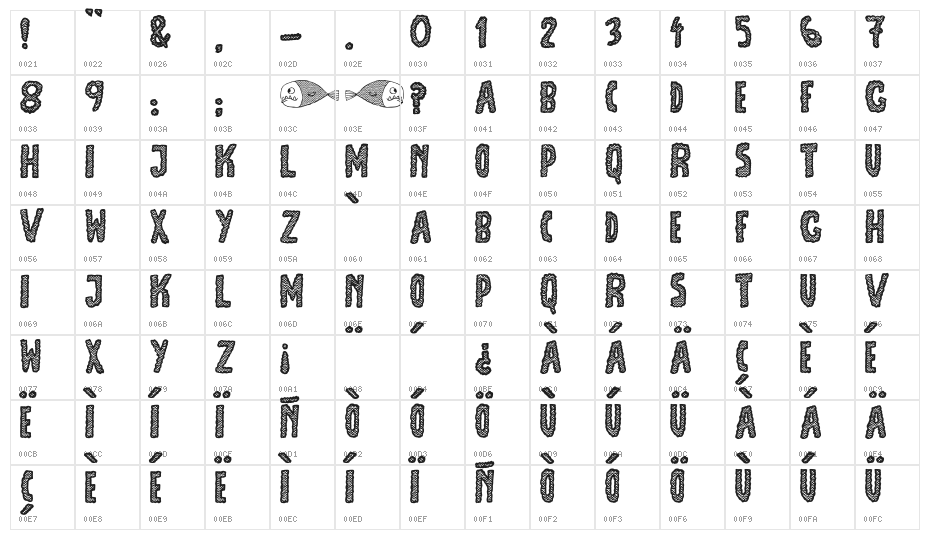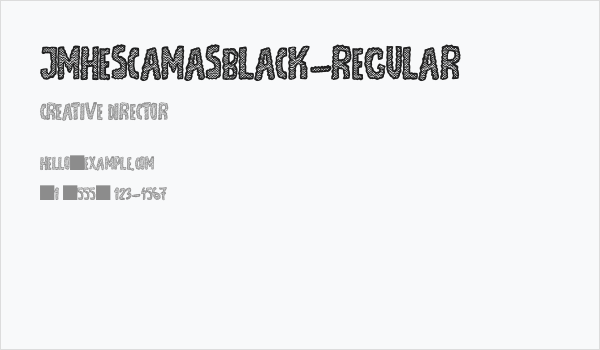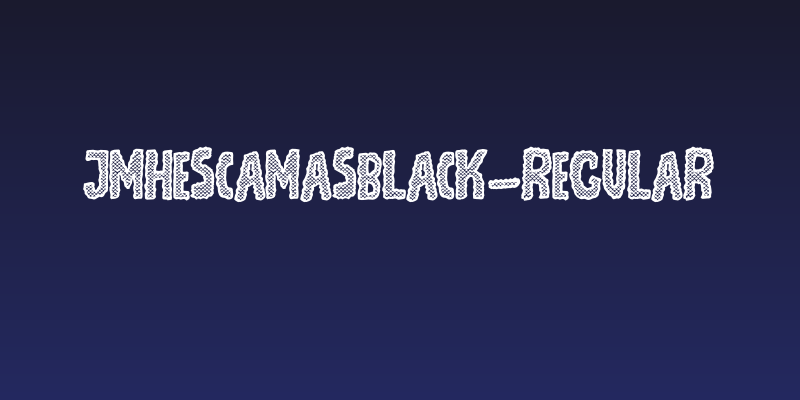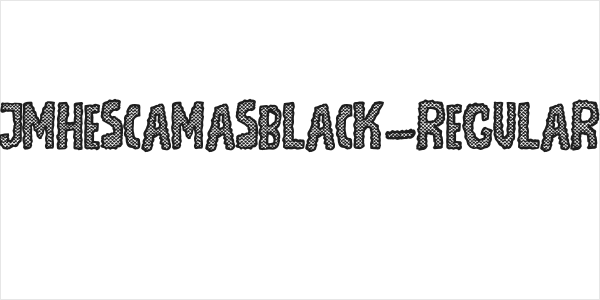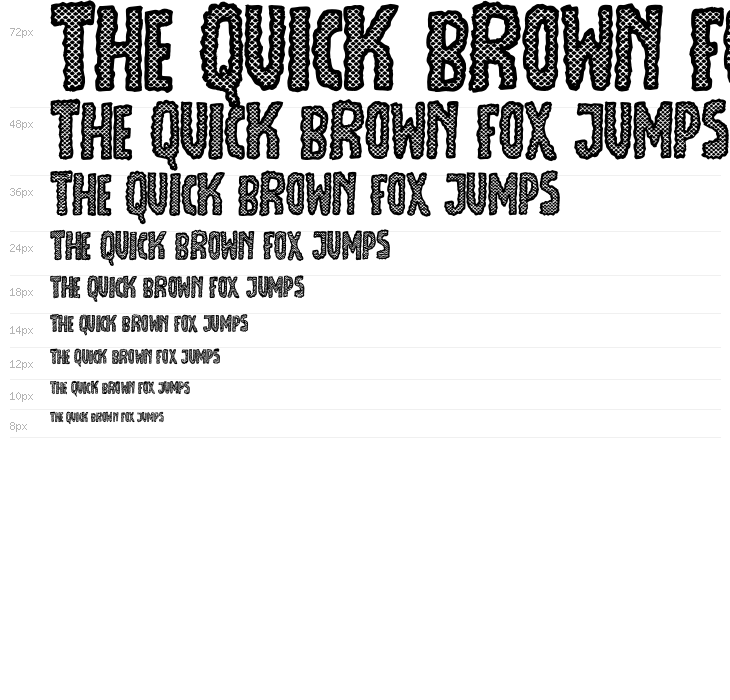
JMHEscamasBlack-Regular Font
JMHEscamasBlack-Regular Description
This font features a bold and decorative style with a unique pattern resembling scales or a mesh texture within each character. The uppercase and lowercase letters maintain a consistent width and height, creating a uniform appearance. The numbers and special characters follow the same design, ensuring a cohesive look across all elements. The intricate detailing within each letter adds a layer of complexity, making it stand out as a display font. Its boldness and decorative nature make it suitable for eye-catching designs.
| Proposed Projects | Ideal for branding, posters, album covers, and any project requiring a standout display font. |